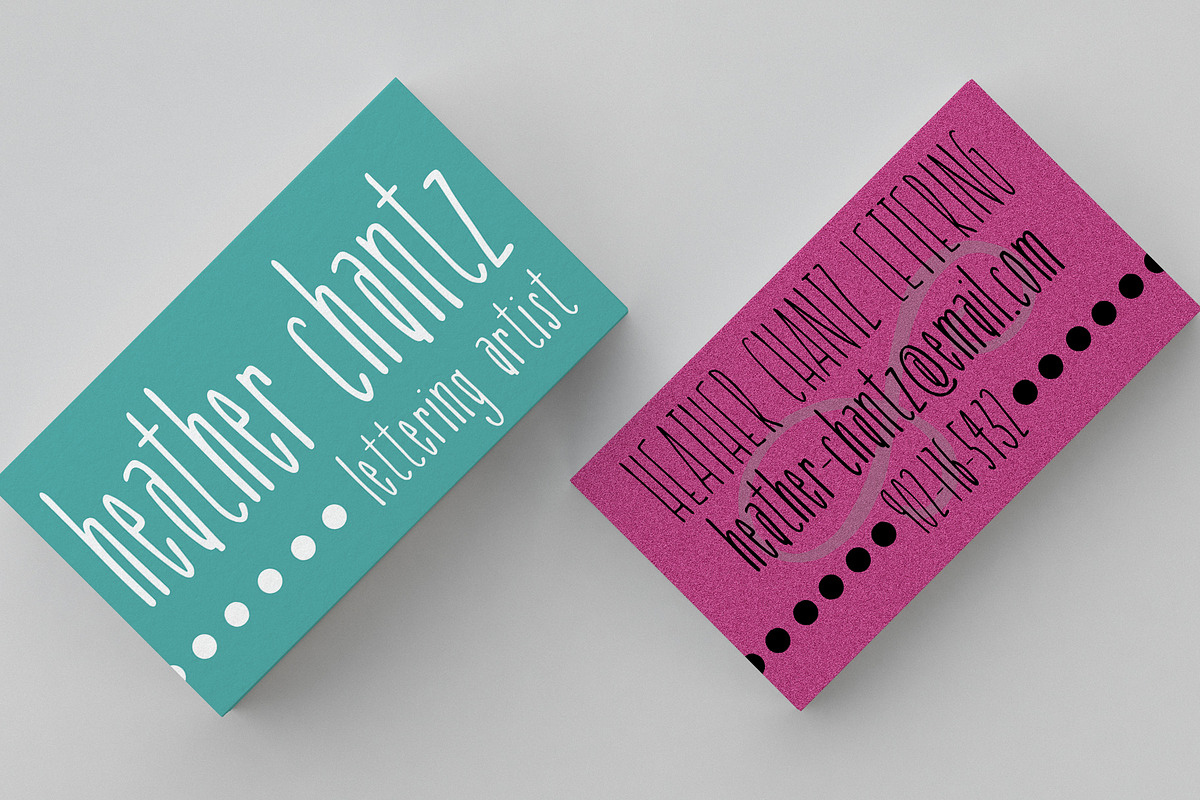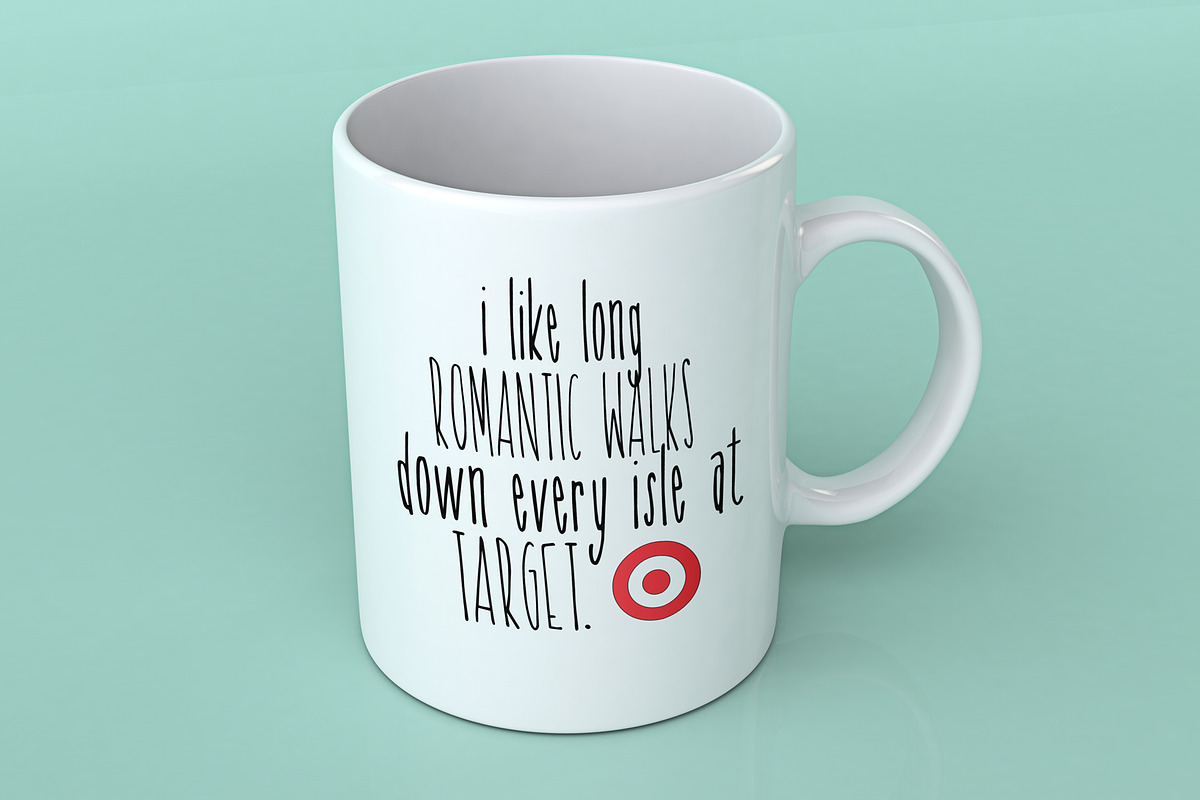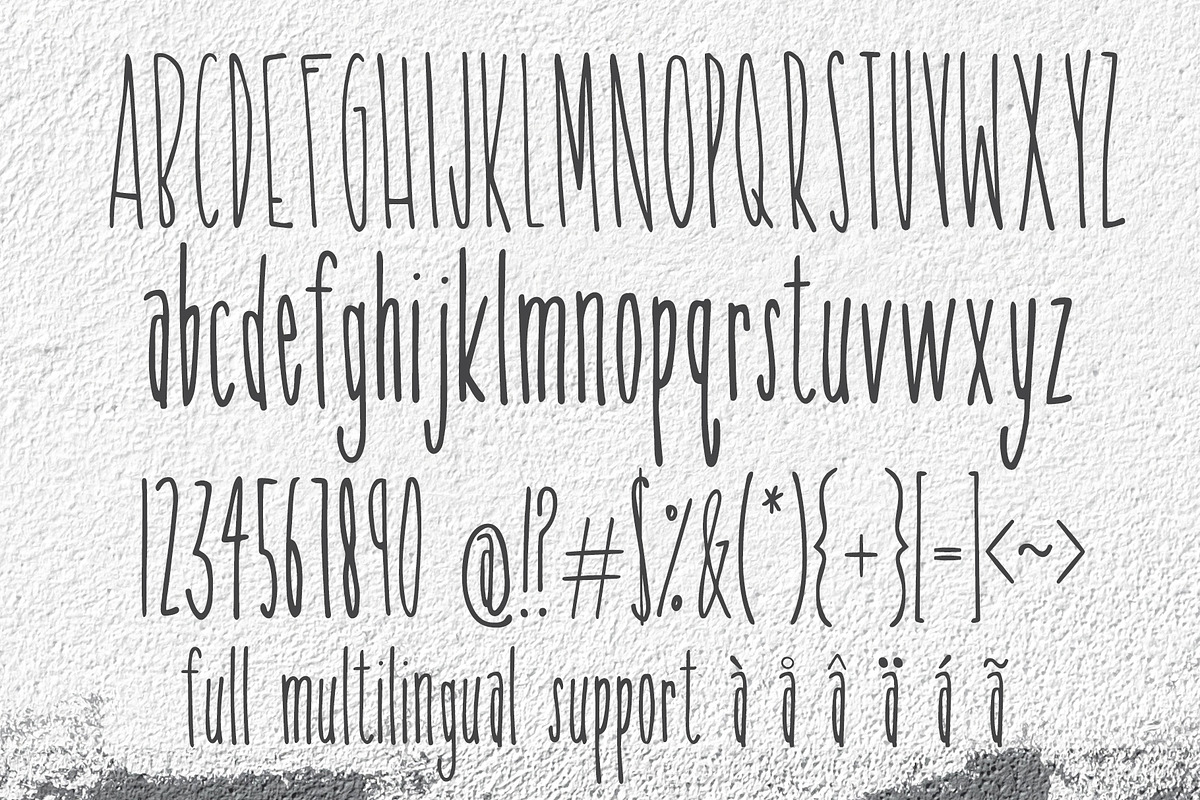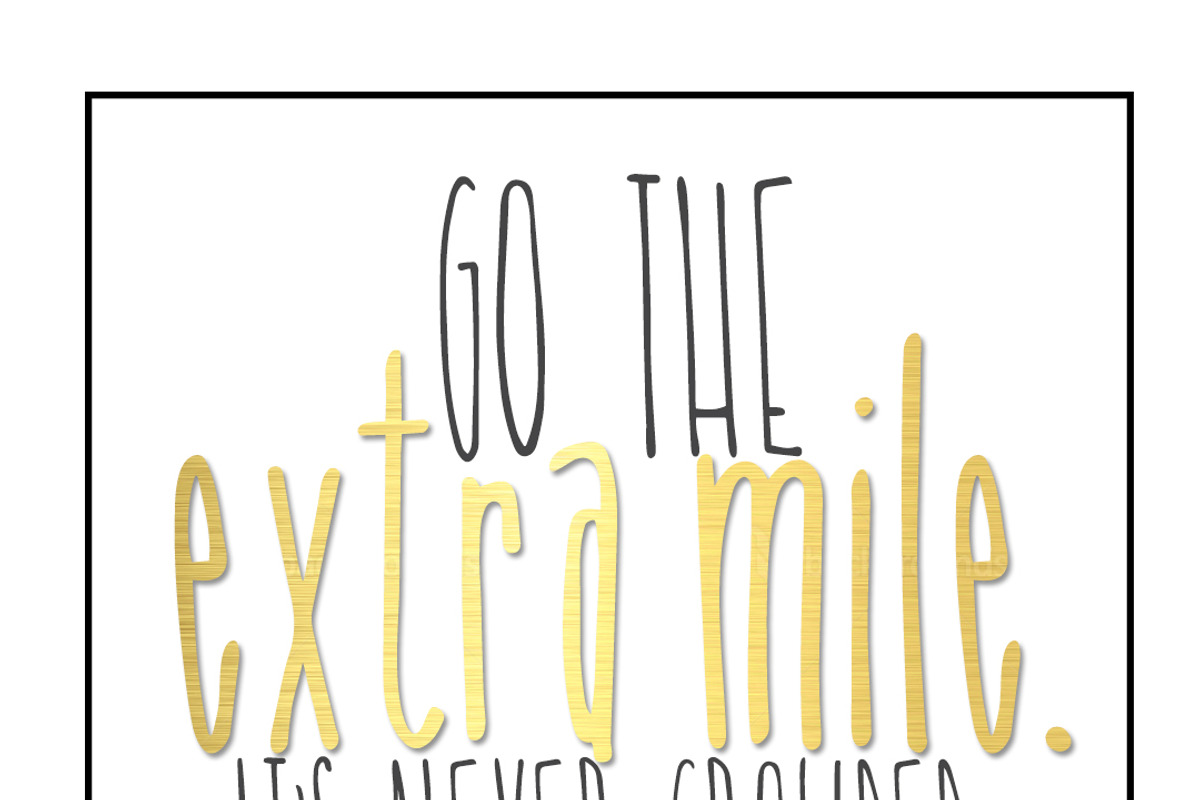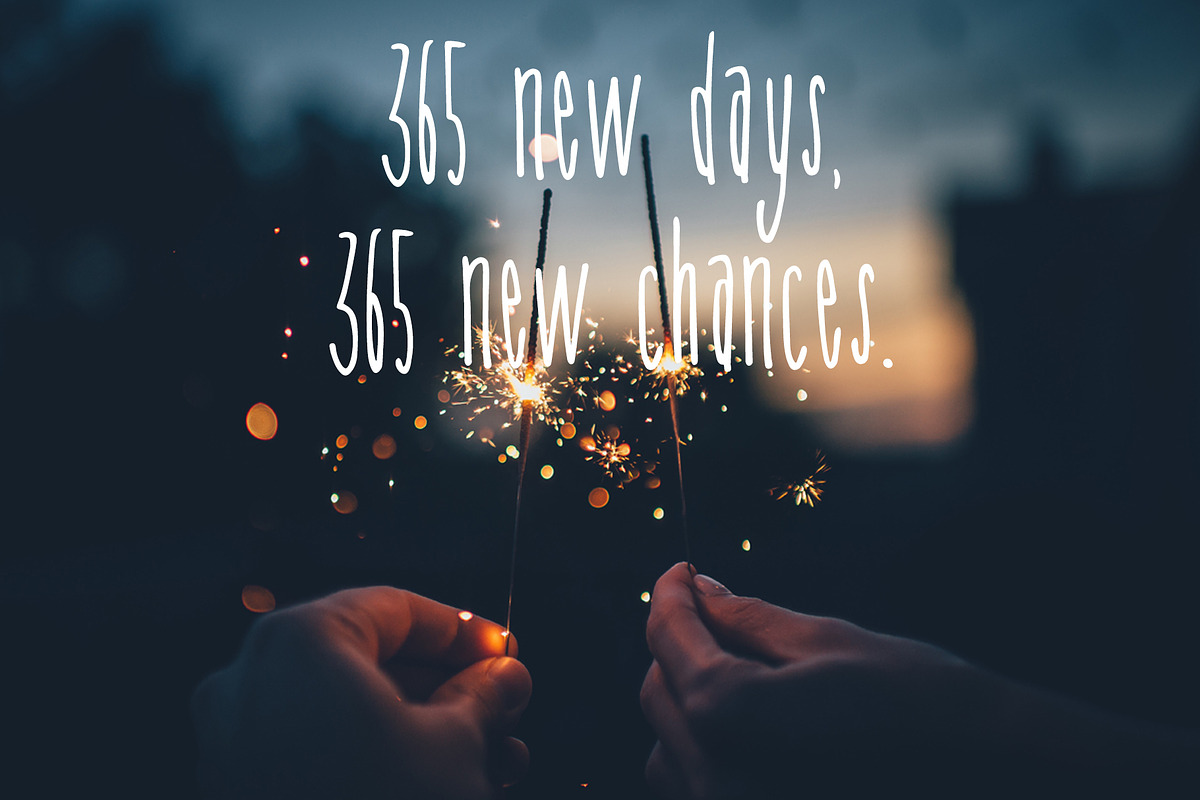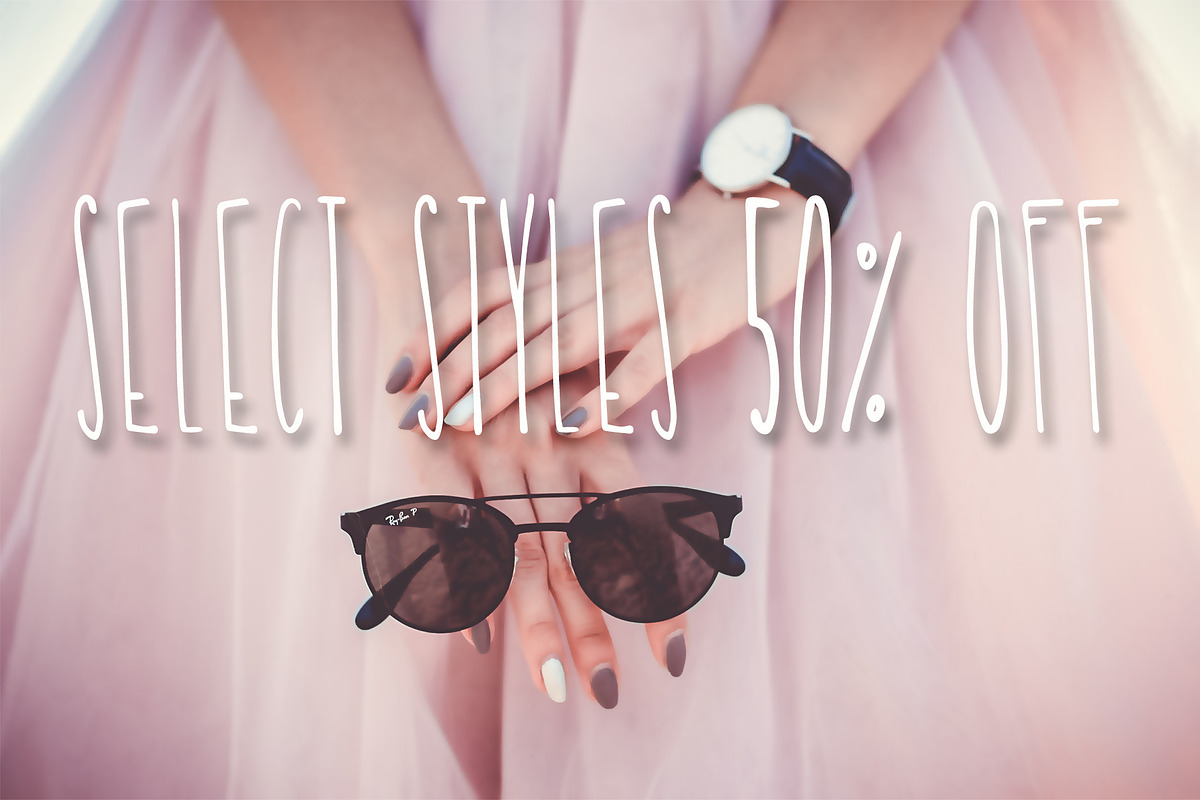
Cascade Font Duo
Cascade font is a fun and trendy handwritten font duo that will look great on your designs, logos, packaging, greeting cards, social media, prints, and more!
Use all CAPS for a tall and skinny font style! Use all lowercase for a charming handwritten look.
Cascade Font Duo by Dansie Design fits naturally into Branding, posters, packaging, typography.